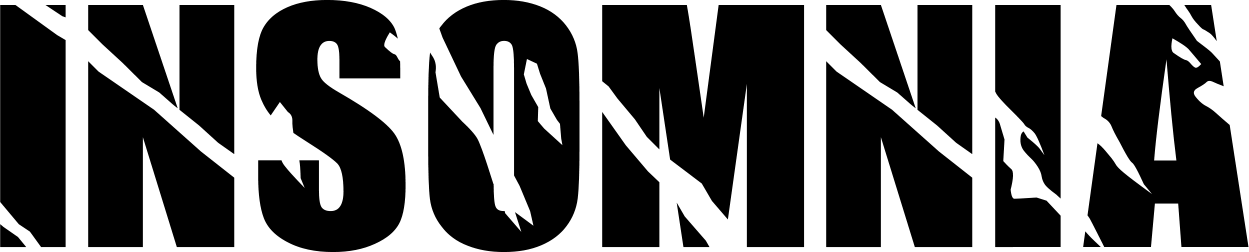
Insomnia Font
If you want to scare people off with only your words, this horror font might be perfect for you. Insomnia has scratchy and bold characters that give a scary, punk, and mysterious feeling to your writing.
You can use this font for horror movie and book titles, Halloween posters and flyers, channel banners, and murder documentaries. It only contains a set of capitalized alphabetical letters.
Designed by: Filmhimmel